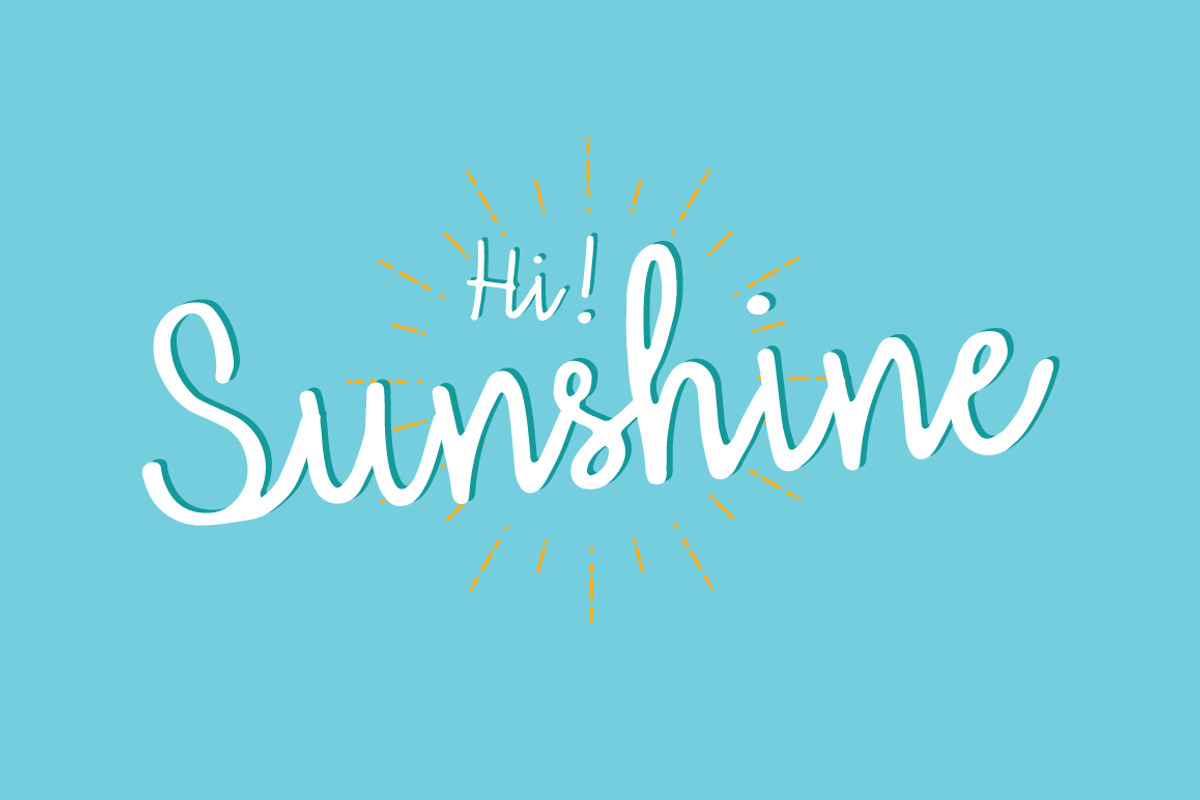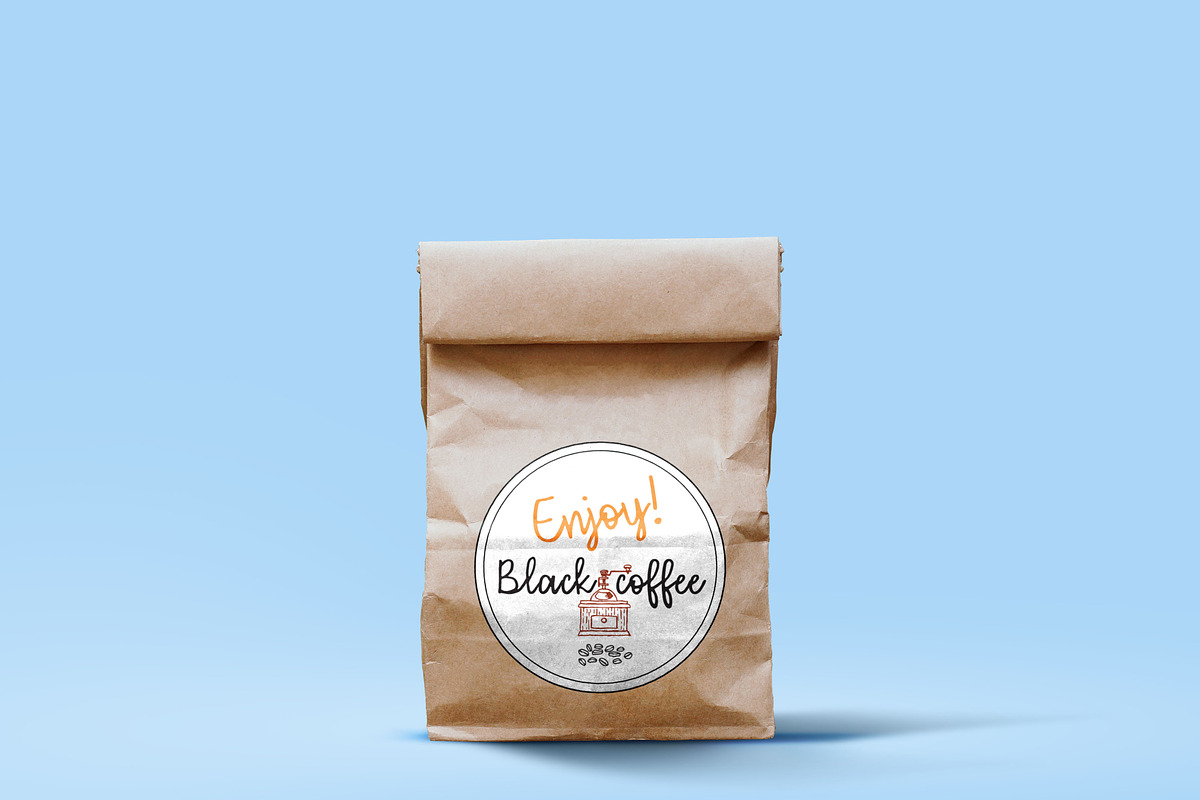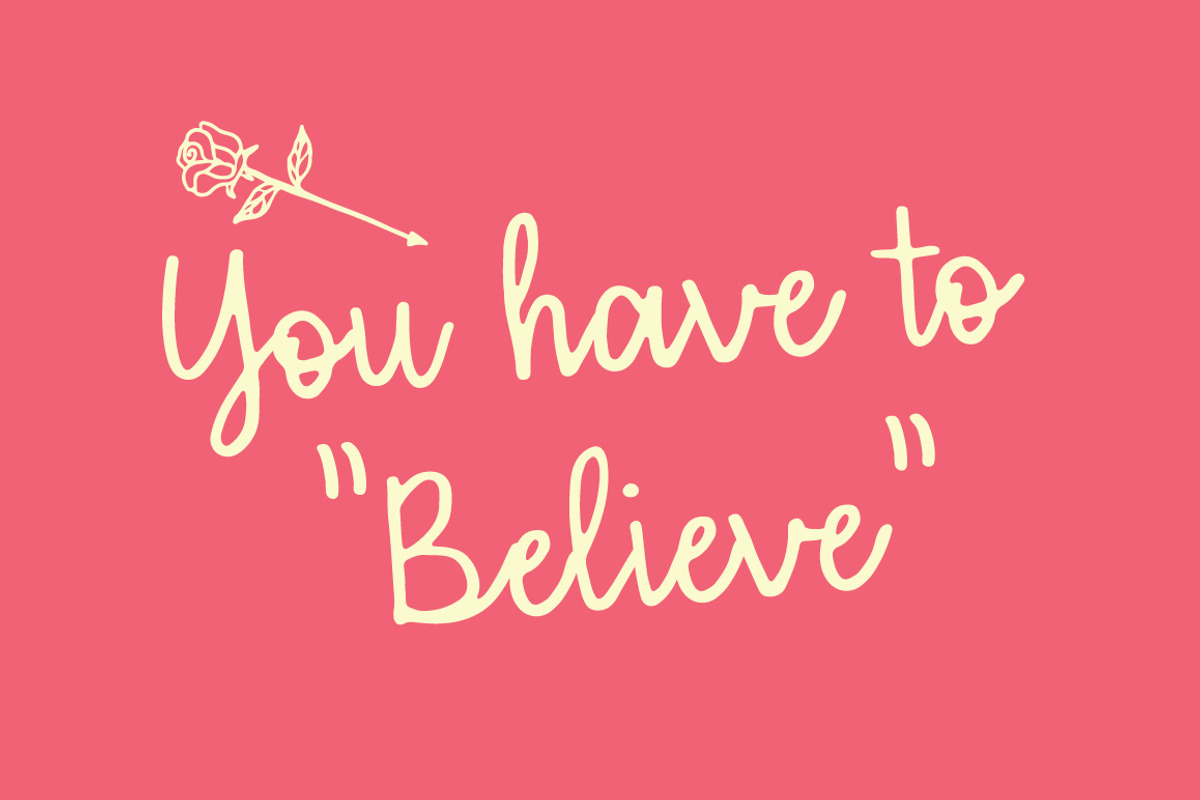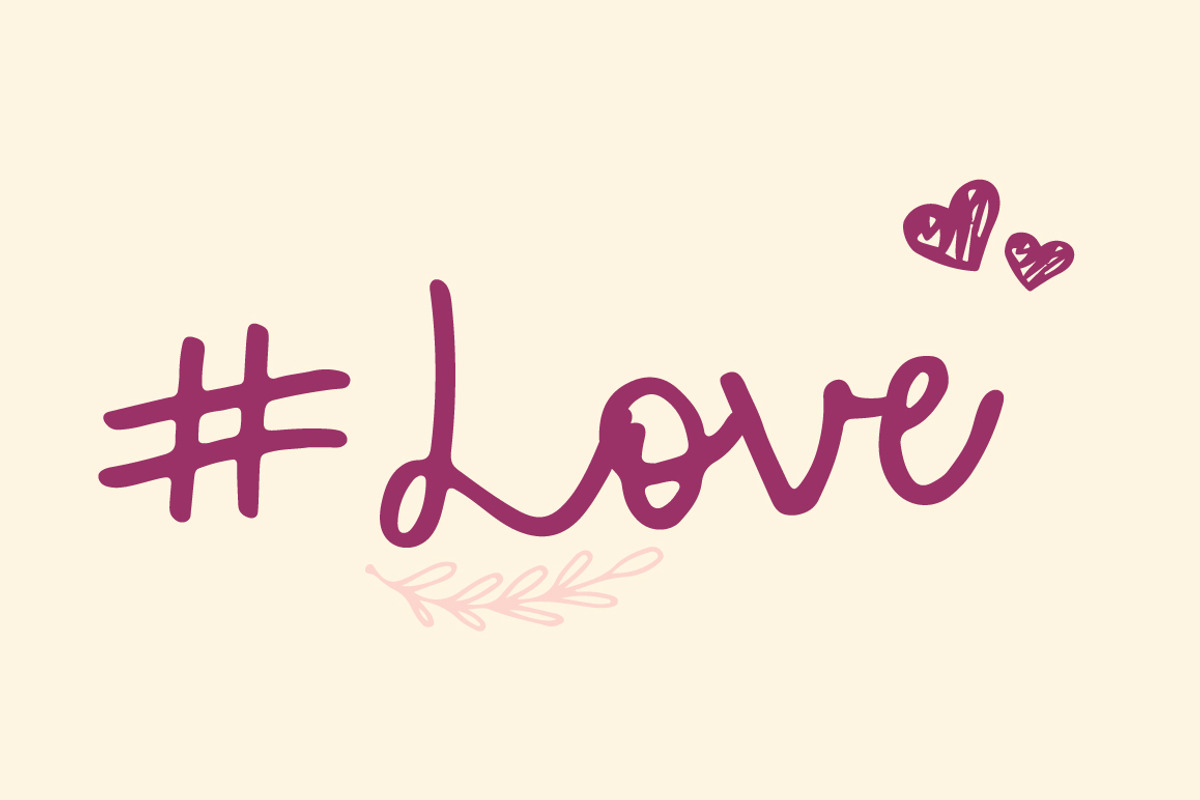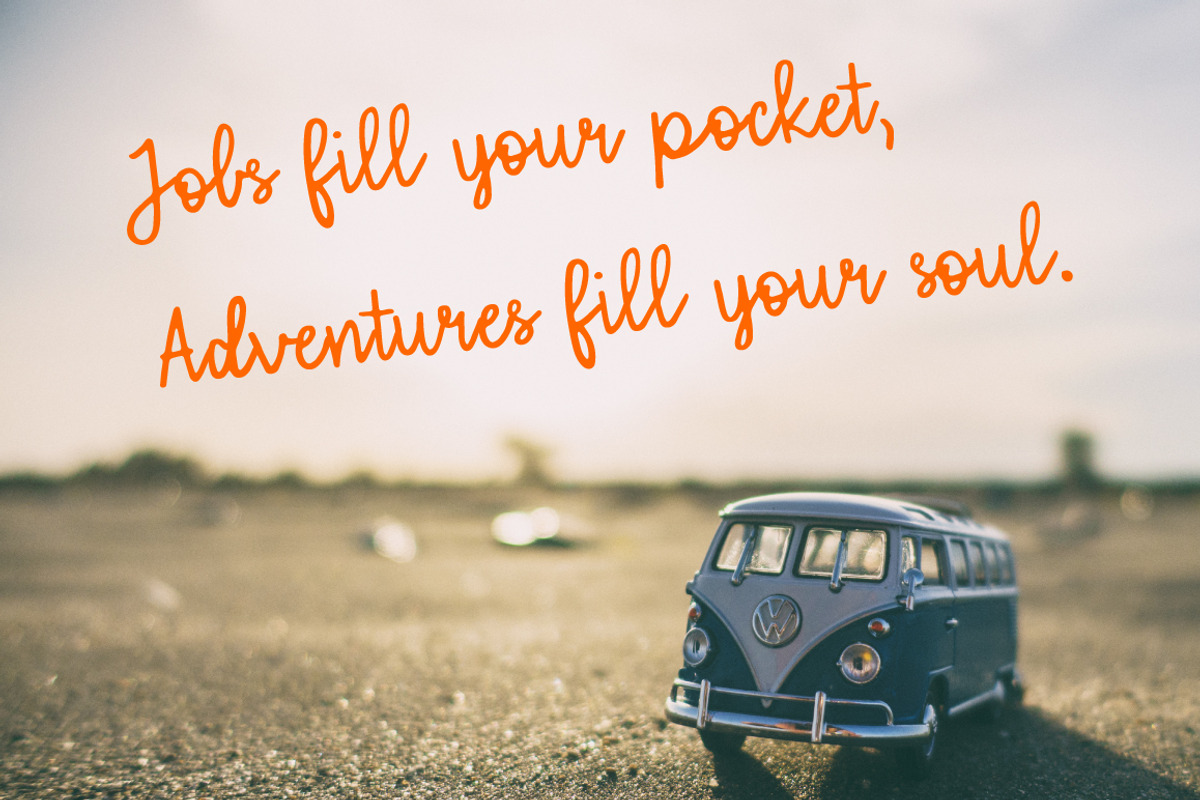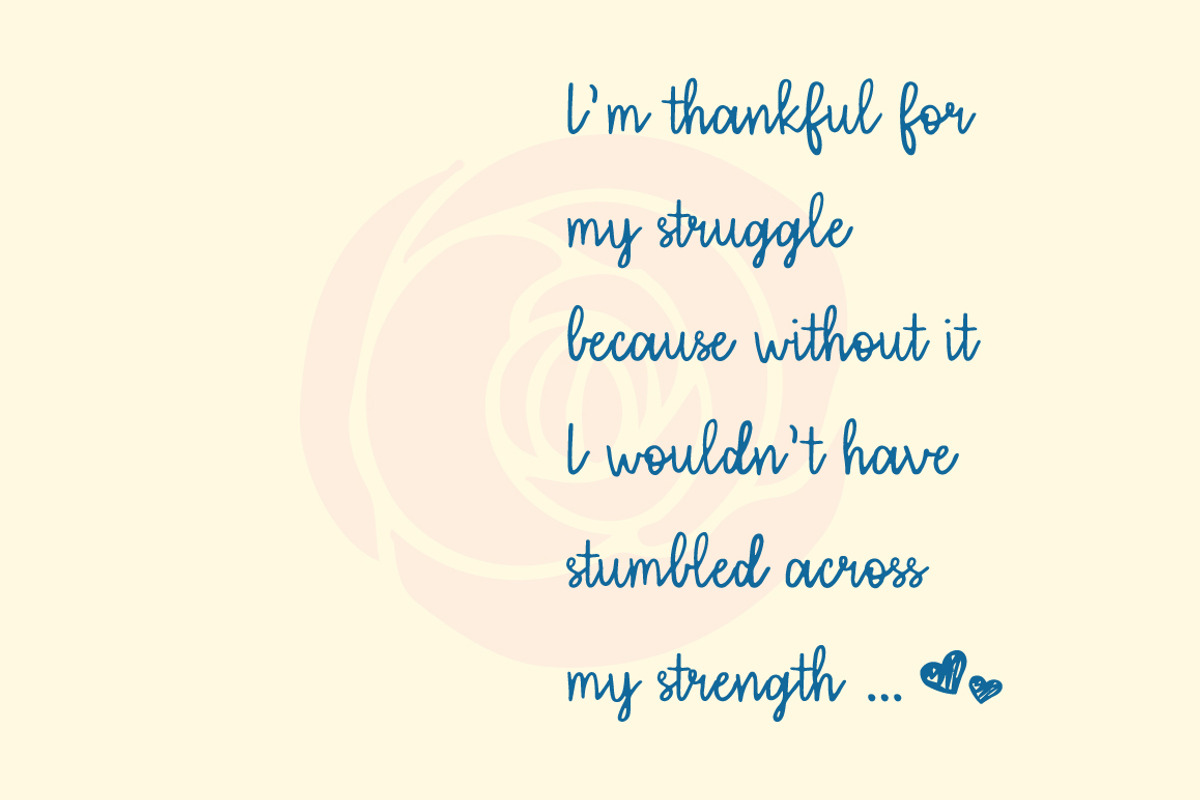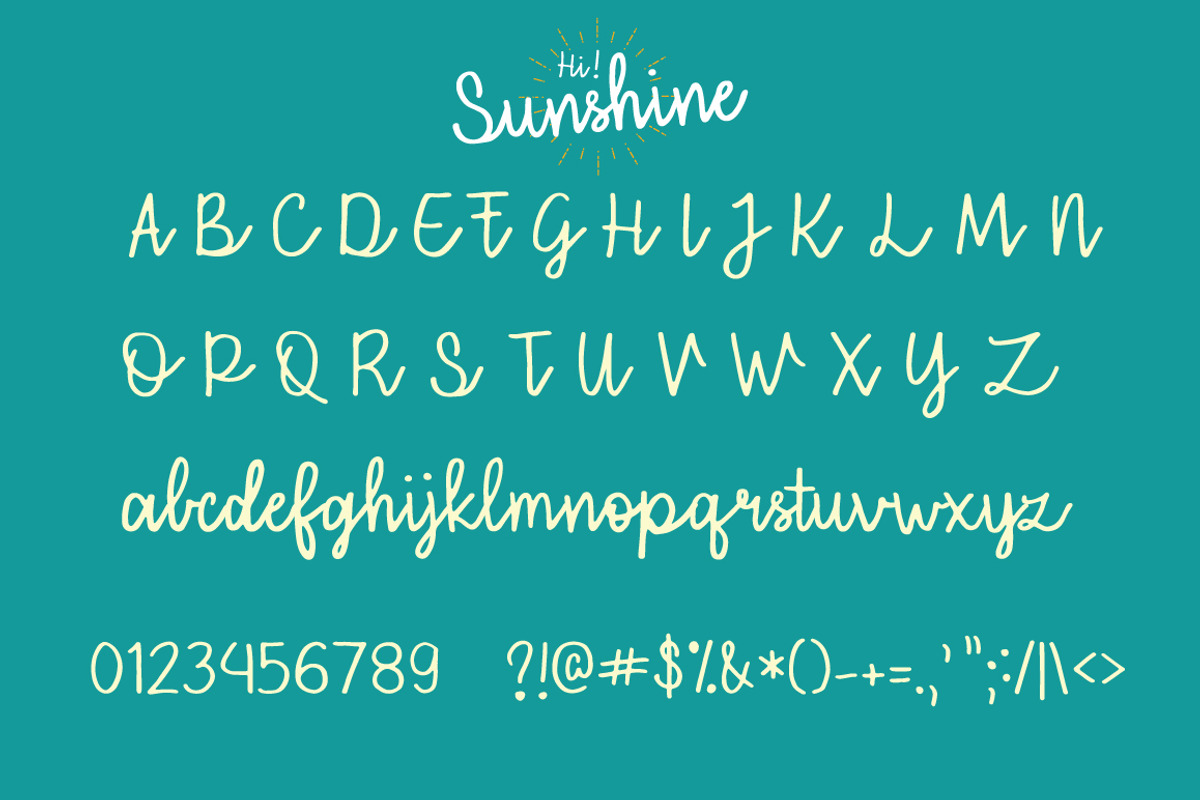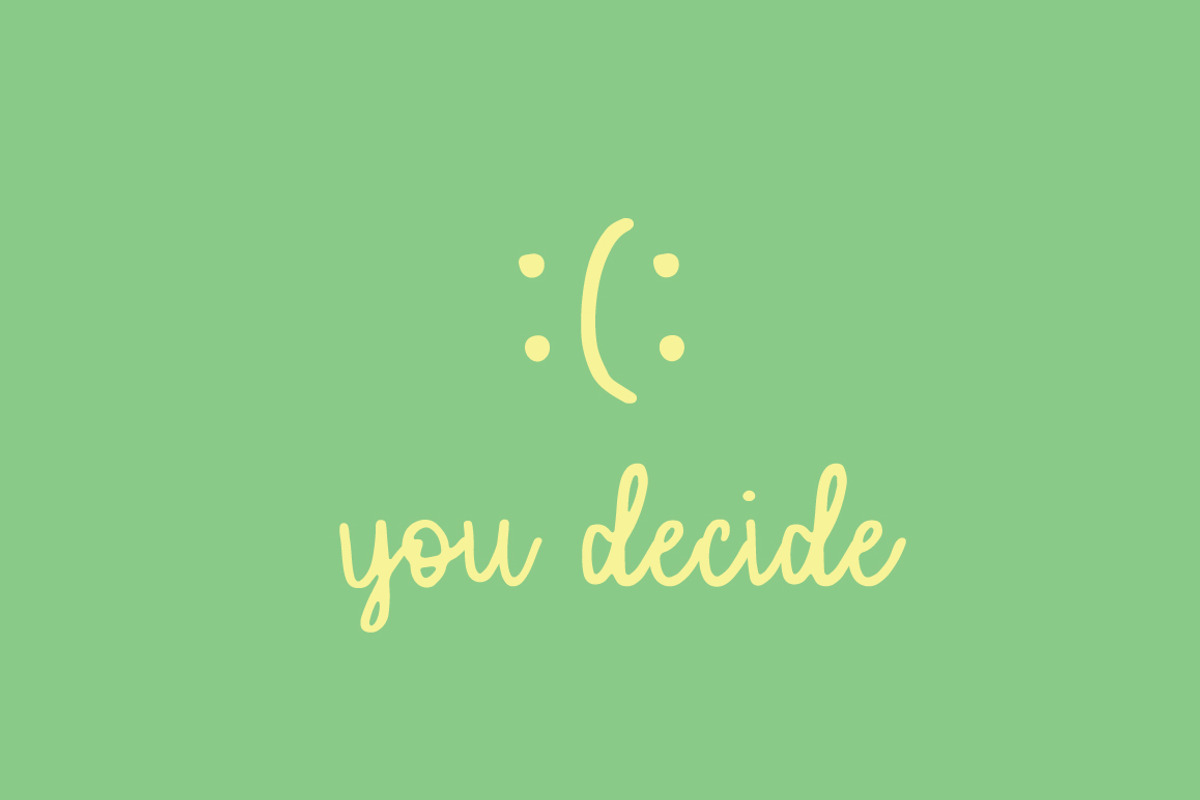
Hi Sunshine | Script font
Hi Sunshine is cute and can be used on cards, posters, merchandise, book covers, websites, packaging, and basically anywhere you like. The overall feel of the font is simple and warm, elegant and informal and it is perfect if you want to convey a sense of friendliness and style.
Hi Sunshine | Script font by Artstudio fits naturally into Branding, posters, packaging, typography.